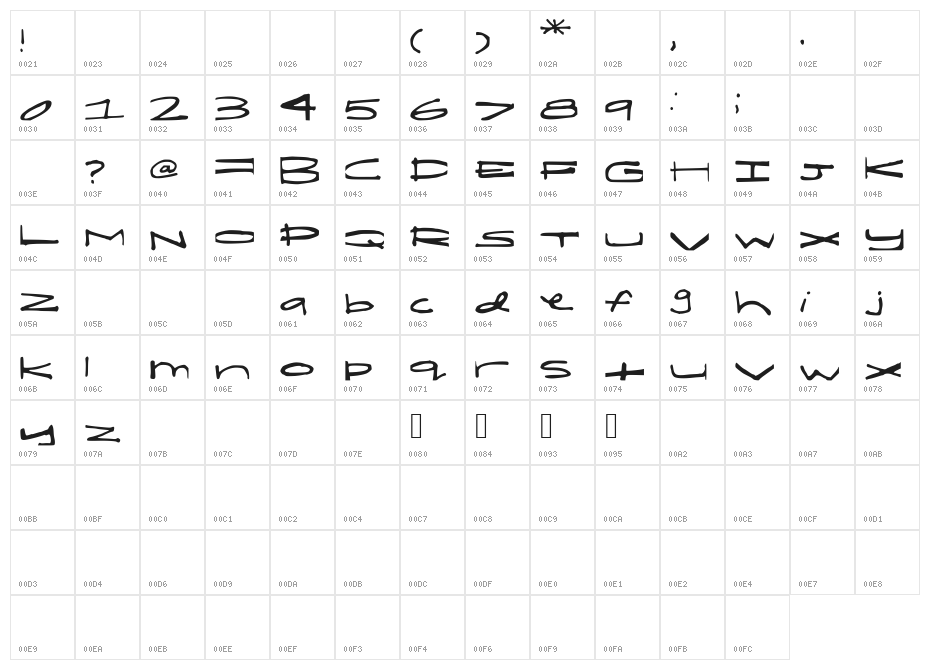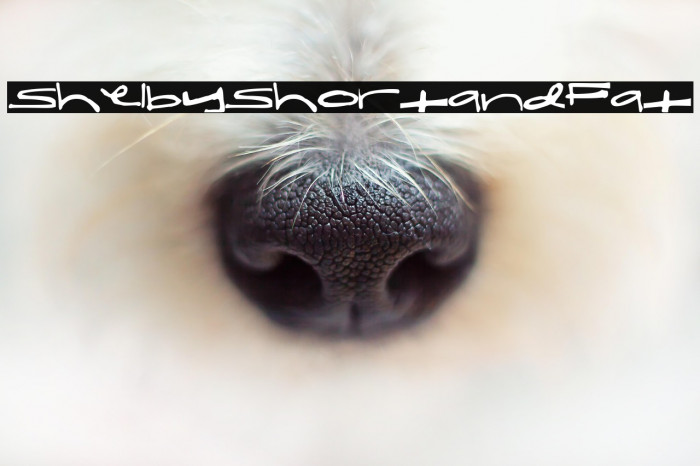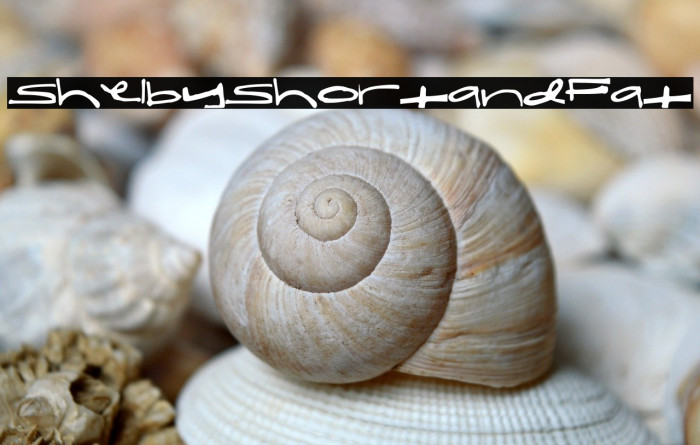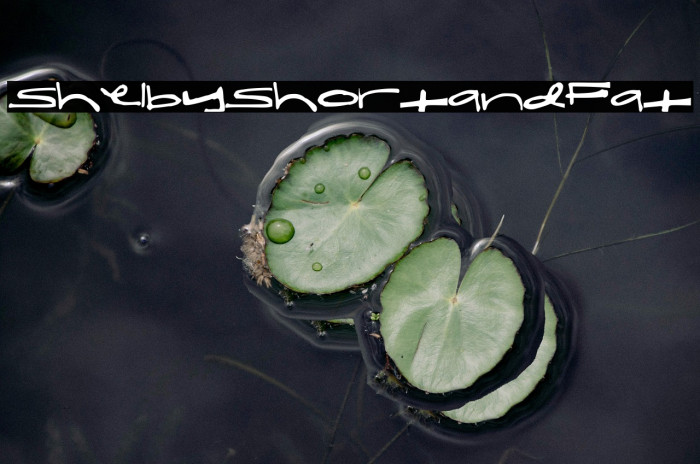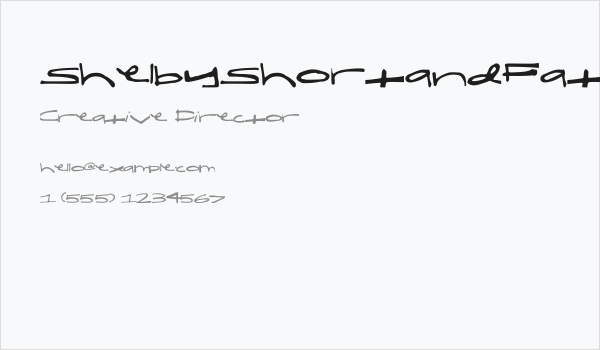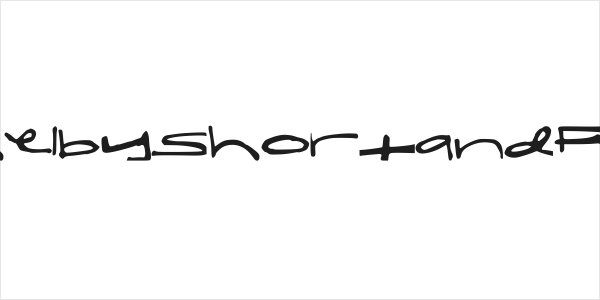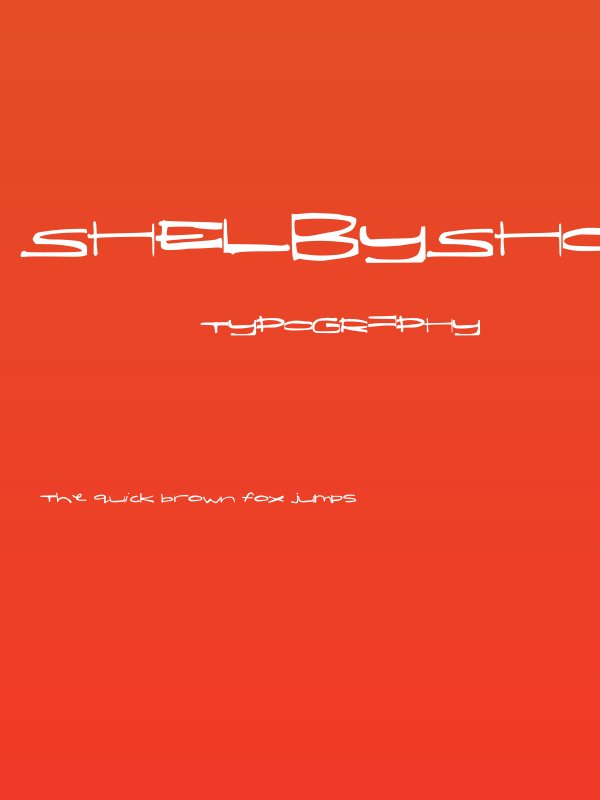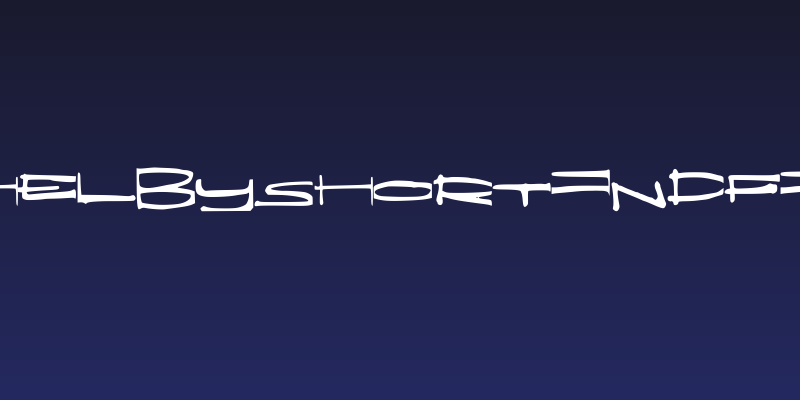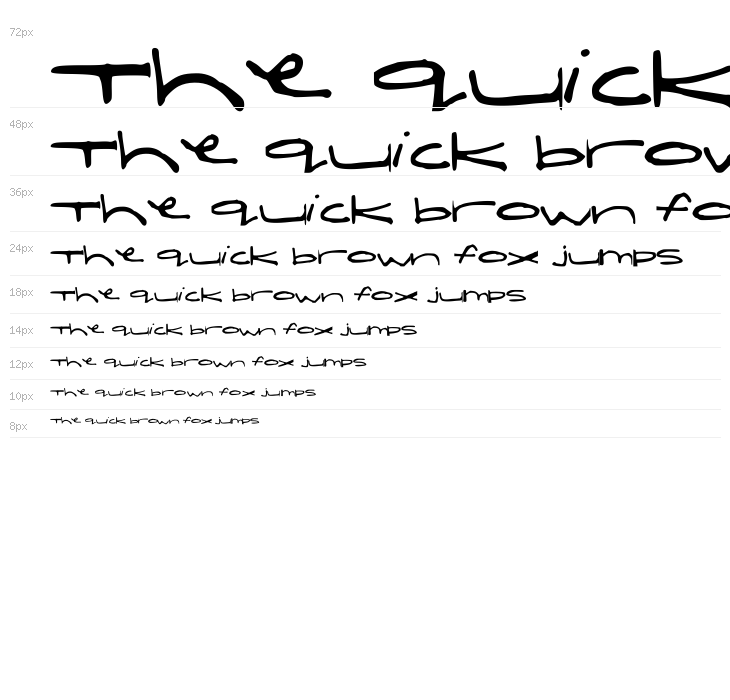
ShelbyShortandFat Font
ShelbyShortandFat Description
A playful, handwritten font with irregular strokes and a casual appearance.
| Use Case | Informal text, creative projects. |
| Proposed Projects | Greeting cards, children's books, informal invitations. |